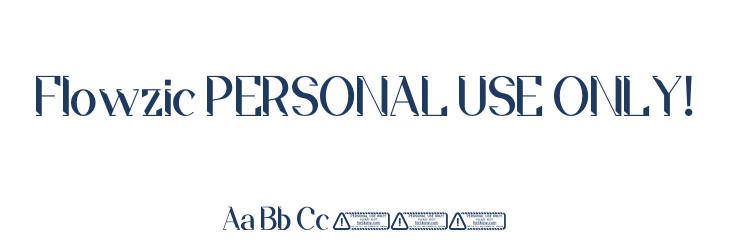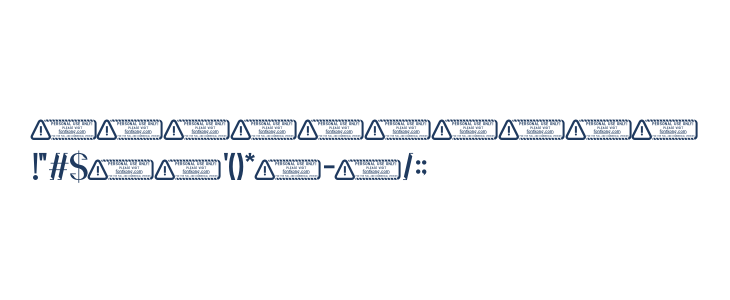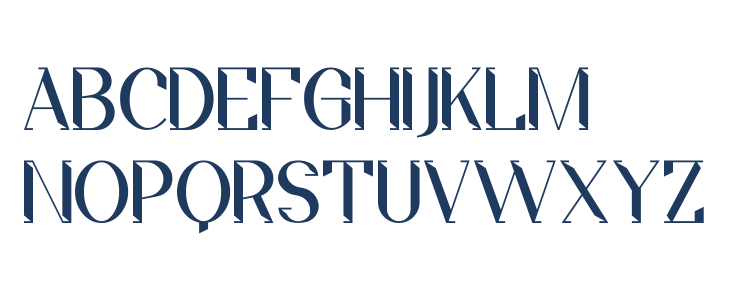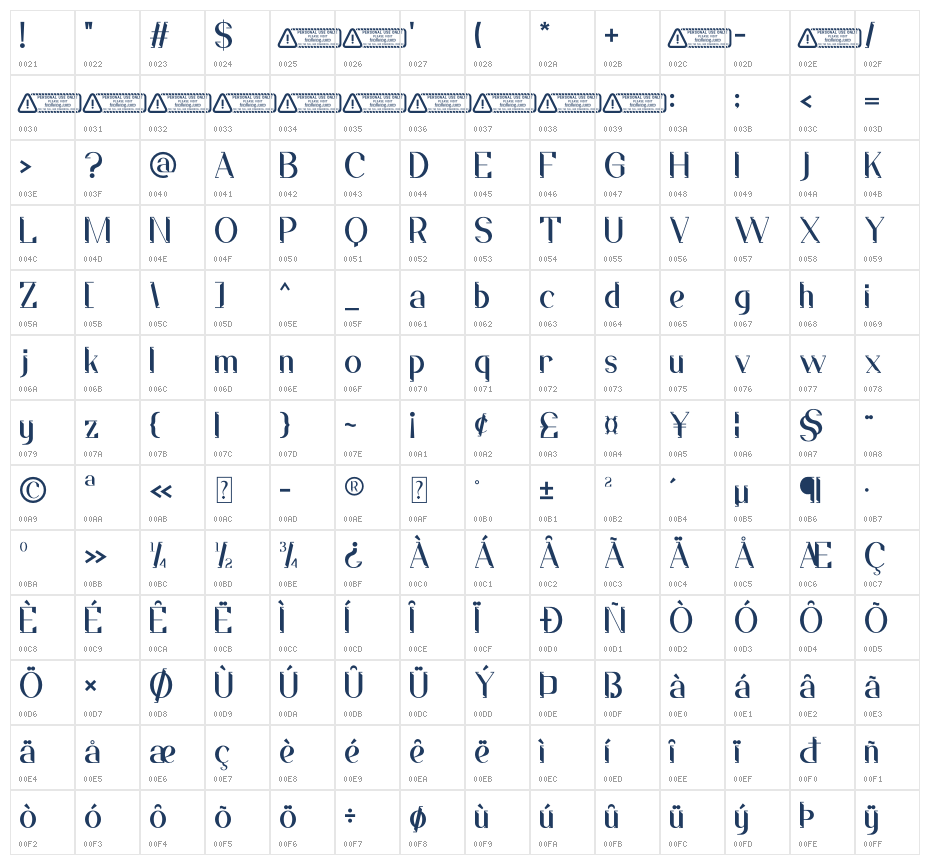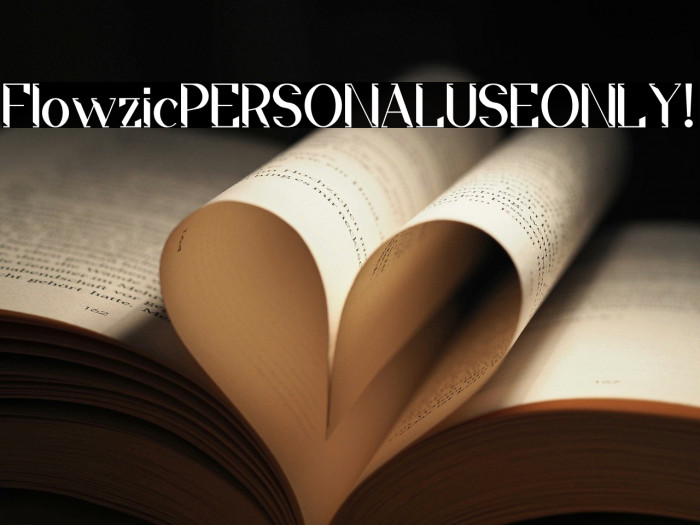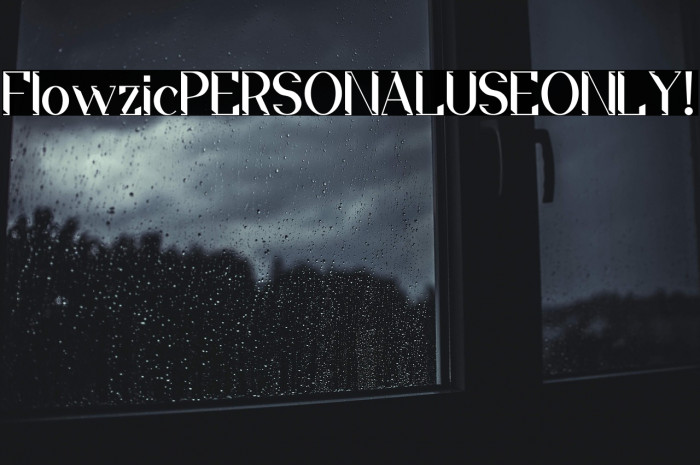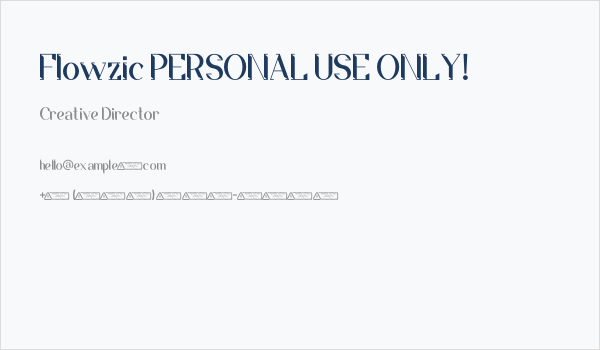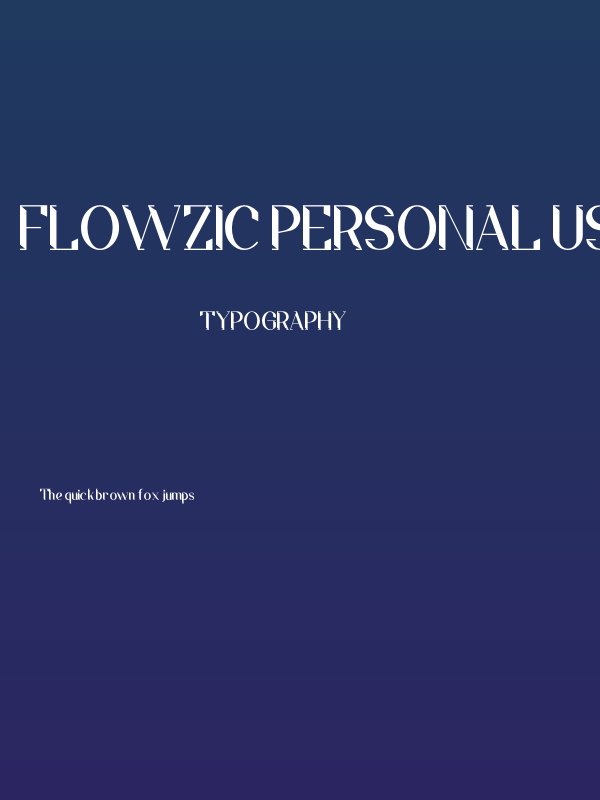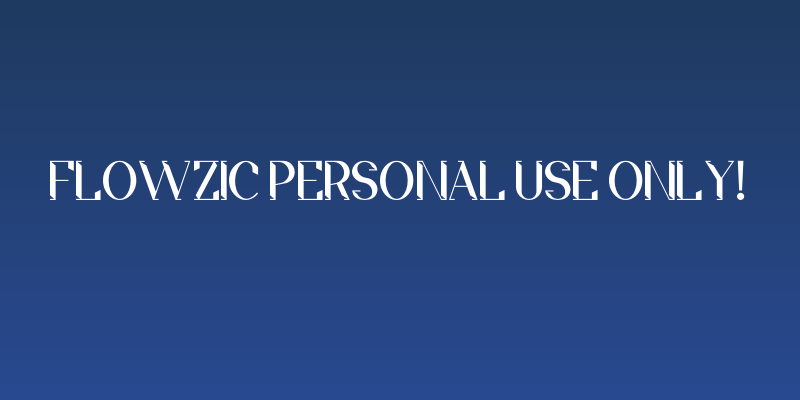
Flowzic PERSONAL USE ONLY! Font
Flowzic PERSONAL USE ONLY! Description
A stylized, geometric serif font with sharp angles and high contrast, featuring both uppercase and lowercase letters along with numerals and symbols.
| Overall Style | Modern, Geometric, Decorative |
| Use Case | Headlines, Logos, Titles |